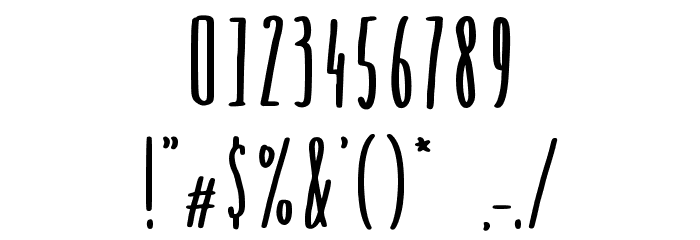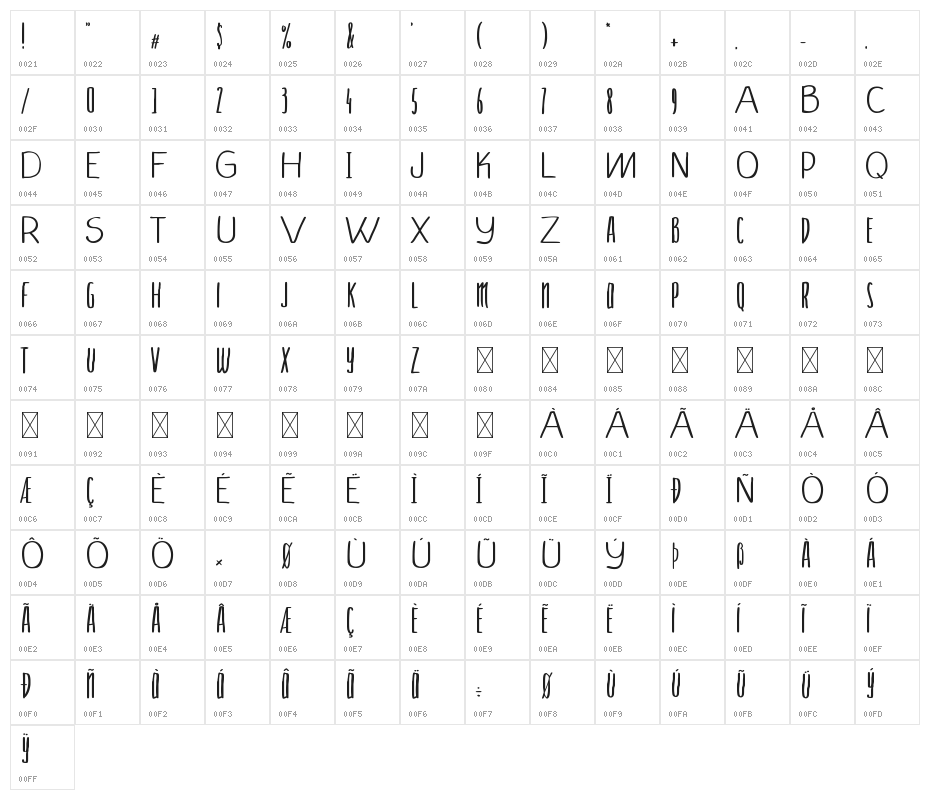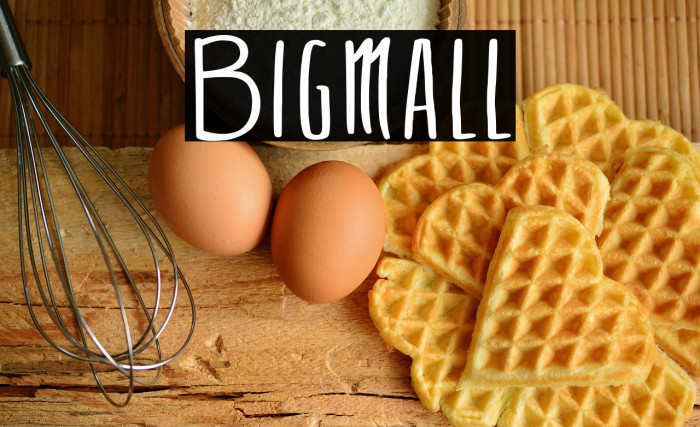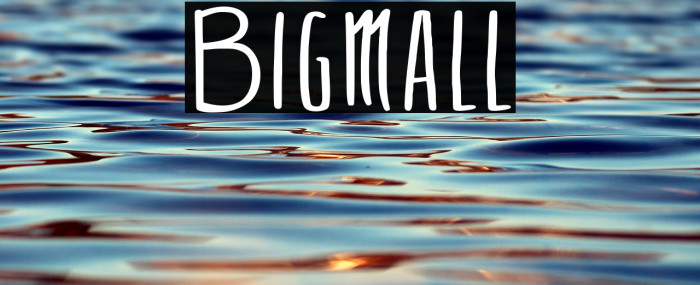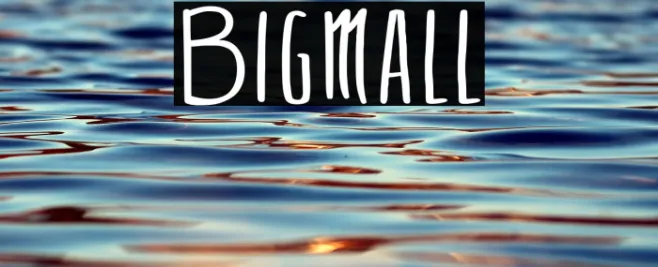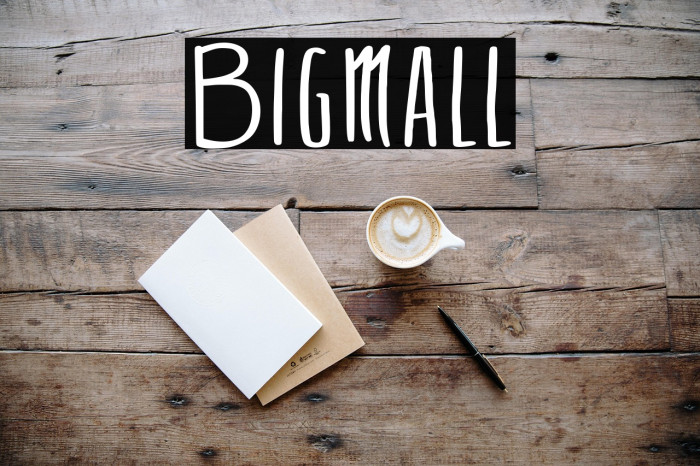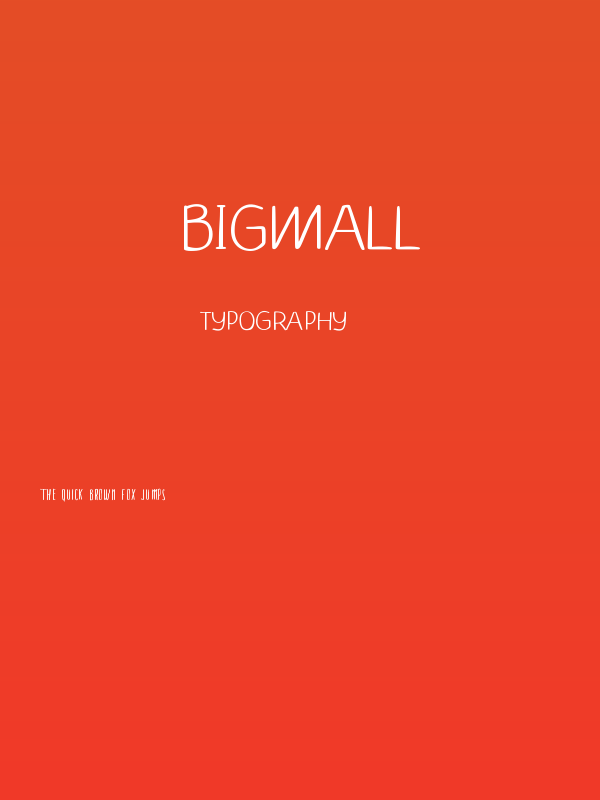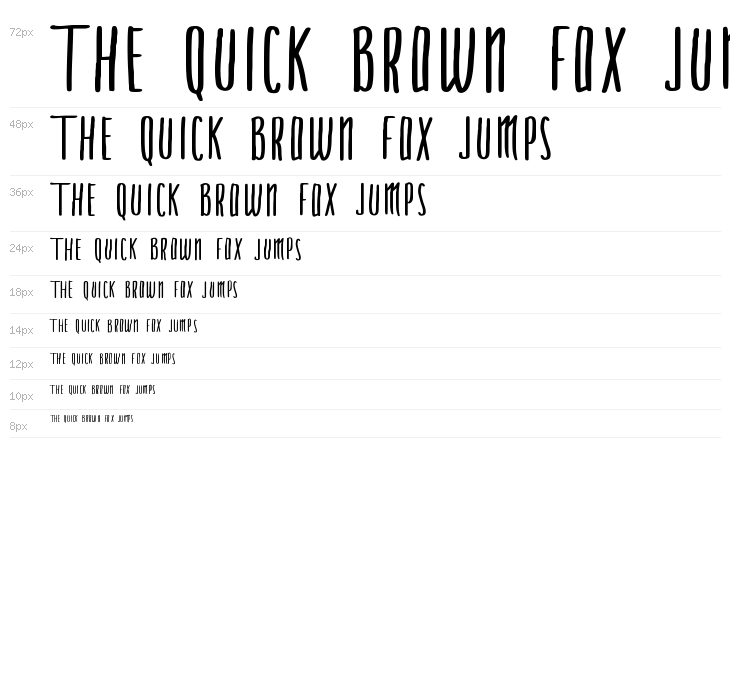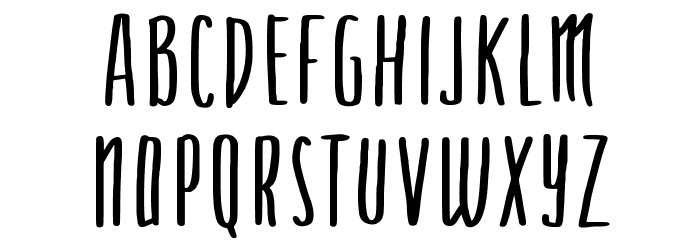
Bigmall Font
Bigmall Description
This font features a playful and whimsical style with a handwritten appearance. The uppercase letters are tall and narrow, giving a sense of elegance and modernity. The lowercase letters maintain a consistent style, complementing the uppercase with a slightly more relaxed form. Numbers are clear and distinct, matching the overall aesthetic. Special characters are creatively designed, adding to the font's unique charm. The strokes are smooth and consistent, with a medium contrast that enhances readability while maintaining a decorative flair.